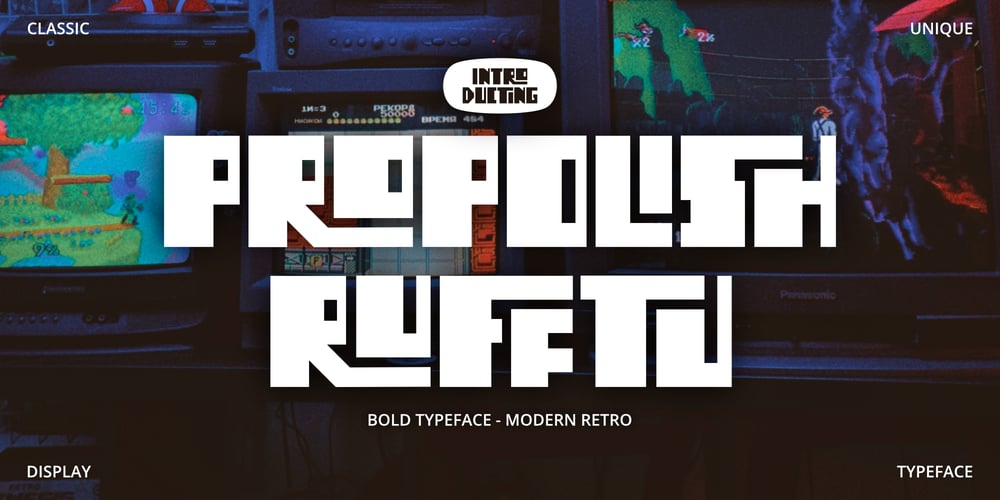
Propolish Rufftu Font Family was designed by Eka Rifqi Setiawan and published by Erifqizefont. Propolish Rufftu contains 1 styles and family package options. INTRODUCING PROPOLISH RUFFTUPropolish Rufftu is a captivating display font that exudes a rugged charm. With its bold lines and distinctive letterforms, it commands attention and adds character to any design. Ideal for branding, headlines, and posters, Propolish Rufftu brings a unique and edgy aesthetic to your creative projects, making them stand out effortlessly.Hope you like this font.If you find any bug or issue using this font please let me know, I’ll work on it as fast as i can.Thanks for purchasing and have fun…